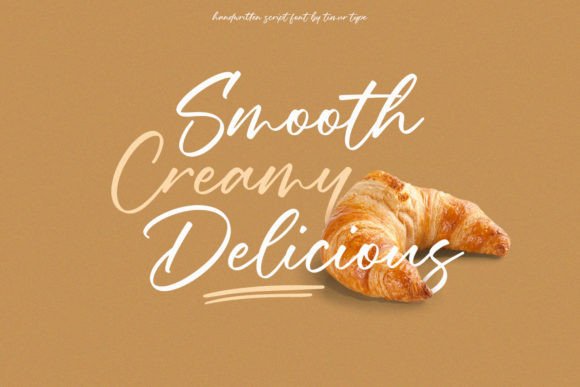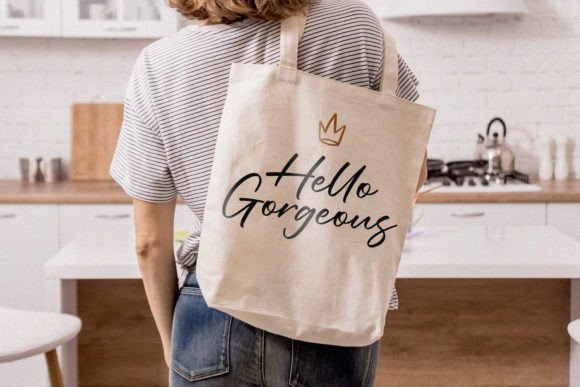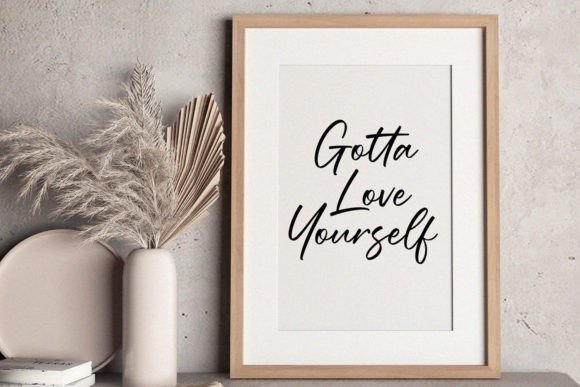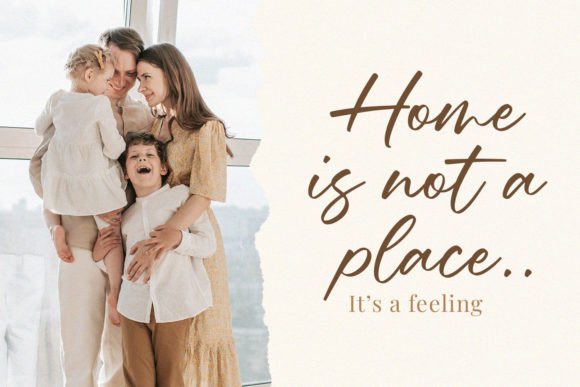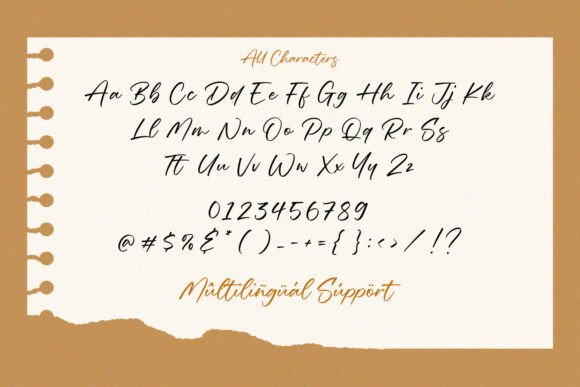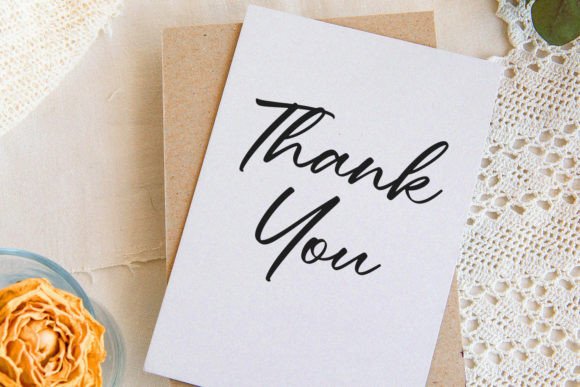
Introducing Animal Chariot Font: Elevate Your Designs with Elegance and Personality
In the world of typography, fonts play a crucial role in conveying the tone and aesthetic of a design. For crafters, designers, and DIY enthusiasts, finding the perfect font can make all the difference in creating visually stunning projects. If you’re on the hunt for a unique and elegant handwritten font that adds a touch of personality to your designs, look no further than Animal Chariot Font.
What is Animal Chariot Font?
Animal Chariot Font is a beautiful, one-of-a-kind handwritten font that exudes elegance and sophistication. Its unique charm makes it an ideal choice for a wide range of design applications, from wedding invitations and thank you cards to greeting cards, logos, and more. Whether you’re a professional designer or a crafty DIY enthusiast, this font is sure to impress.
Key Features of Animal Chariot Font
- Unique and Elegant Design: Animal Chariot Font boasts a distinctive, handcrafted design that sets it apart from more traditional fonts.
- Handwritten Style: The font’s handwritten style adds a personal touch to any design, making it perfect for projects that require a bit of character.
- Versatile: Animal Chariot Font is incredibly versatile and can be used for a variety of design applications, including wedding invitations, greeting cards, logos, and more.
- Easily Readable: Despite its elegant and cursive nature, Animal Chariot Font remains easily readable, making it a great choice for both digital and print designs.
Use Cases for Animal Chariot Font
Animal Chariot Font is a versatile font that can be used in a multitude of design projects. Here are some use cases to get you started:
- Wedding Invitations: Add a touch of elegance and romance to your wedding invitations with Animal Chariot Font.
- Greeting Cards: Create beautiful, personalized greeting cards for special occasions like birthdays, anniversaries, and holidays.
- Logos and Branding: Use Animal Chariot Font to create a unique and memorable logo for your business or brand.
- Thank You Cards: Express your gratitude with stylish and personalized thank you cards.
- DIY Crafts: Incorporate Animal Chariot Font into your DIY craft projects, such as scrapbooking, journaling, and paper crafting.
Tips for Using Animal Chariot Font
To make the most of Animal Chariot Font, here are some tips to keep in mind:
- Pair with Complementary Fonts: Combine Animal Chariot Font with complementary fonts to create visual interest and hierarchy in your designs.
- Experiment with Colors: Play around with different colors to find the perfect match for your design and the font.
- Use for Headings and Titles: Animal Chariot Font is perfect for headings and titles, adding a touch of elegance and sophistication to your designs.
Animal Chariot Font is a unique and elegant handwritten font that can elevate your designs with its personalized style. Whether you’re a designer, crafter, or DIY enthusiast, this font is sure to impress. With its versatility, readability, and beautiful design, Animal Chariot Font is the perfect choice for a wide range of design applications. So why wait? Get creative with Animal Chariot Font today and add a touch of elegance to your designs!